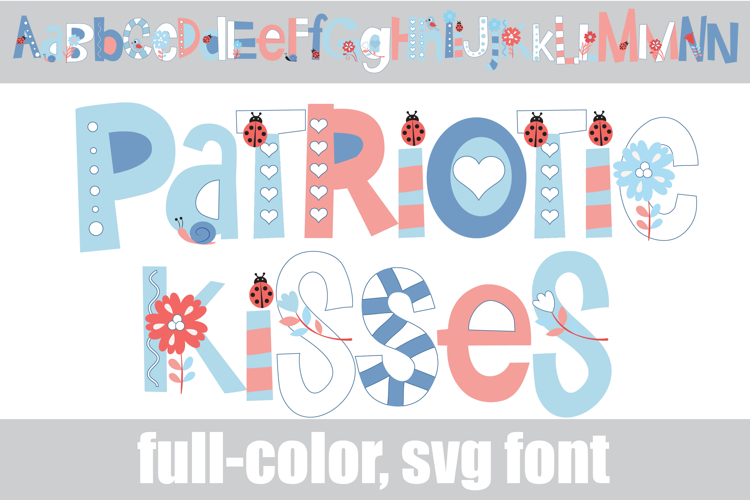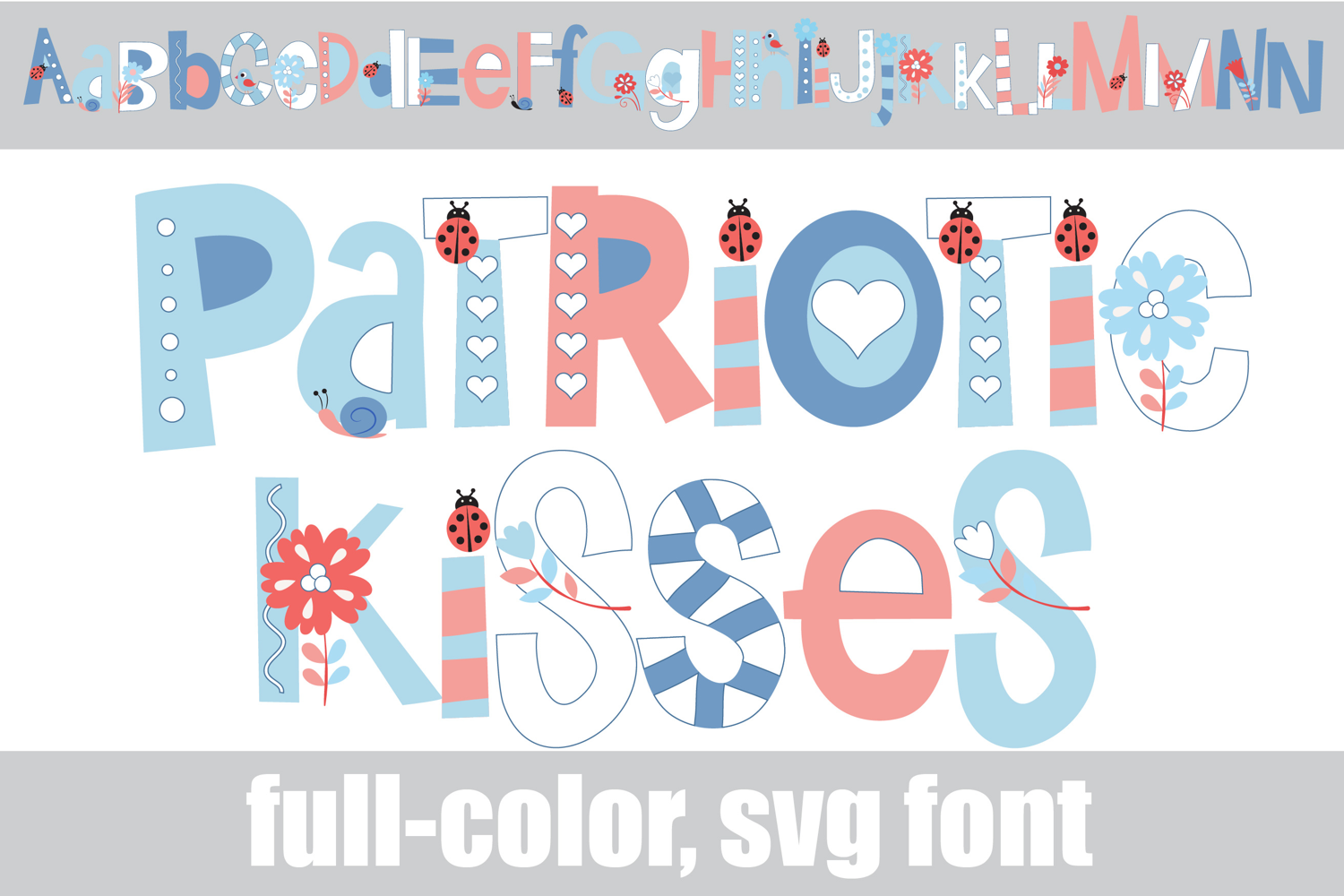
Patriot Kisses Too Color Font
This full-color, whimsical font is in a pastel patriotic color palette. There is an alt case of additional colors of each letter that you can access through your system's character map. T